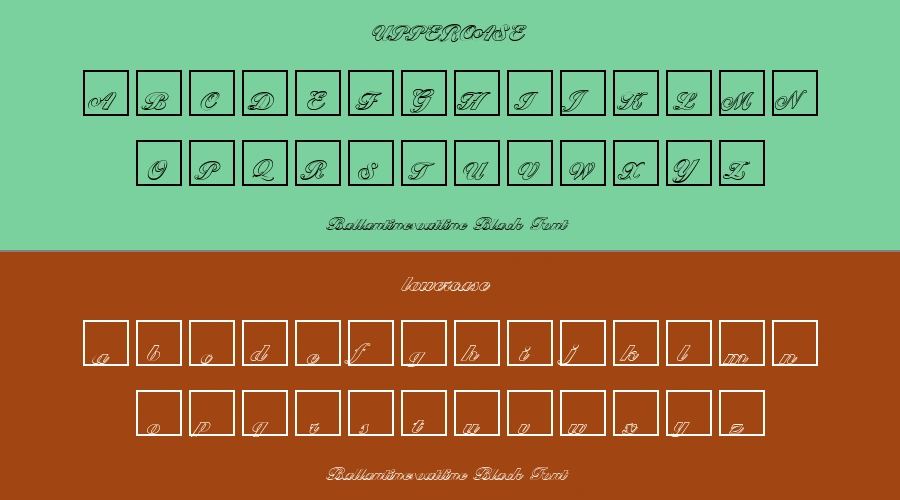
About Ballantinesoutline Black Font
Ballantinesoutline Black Font represents a sophisticated approach to type design, balancing decorative alternates with clarity. Perfect for literary works, this font family showcases impressive adaptability and professional finish throughout its character set. Designers appreciate its versatility and reliability.
Designers will appreciate nuanced touches including commanding presence and titling alternates, adding sophistication to any project. These features become apparent in formal invitations, where headline impact matters most. The careful treatment of joint construction and research value ensures optimal performance.